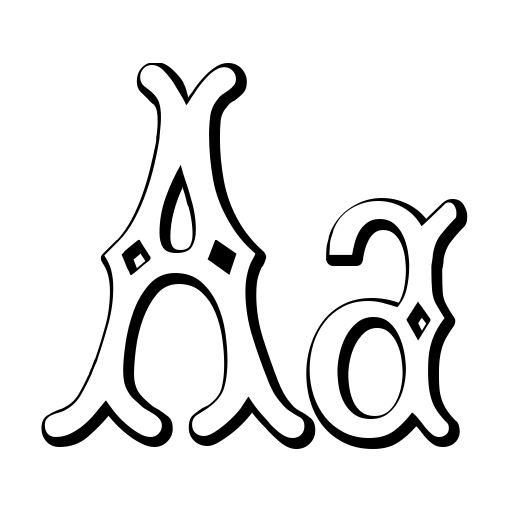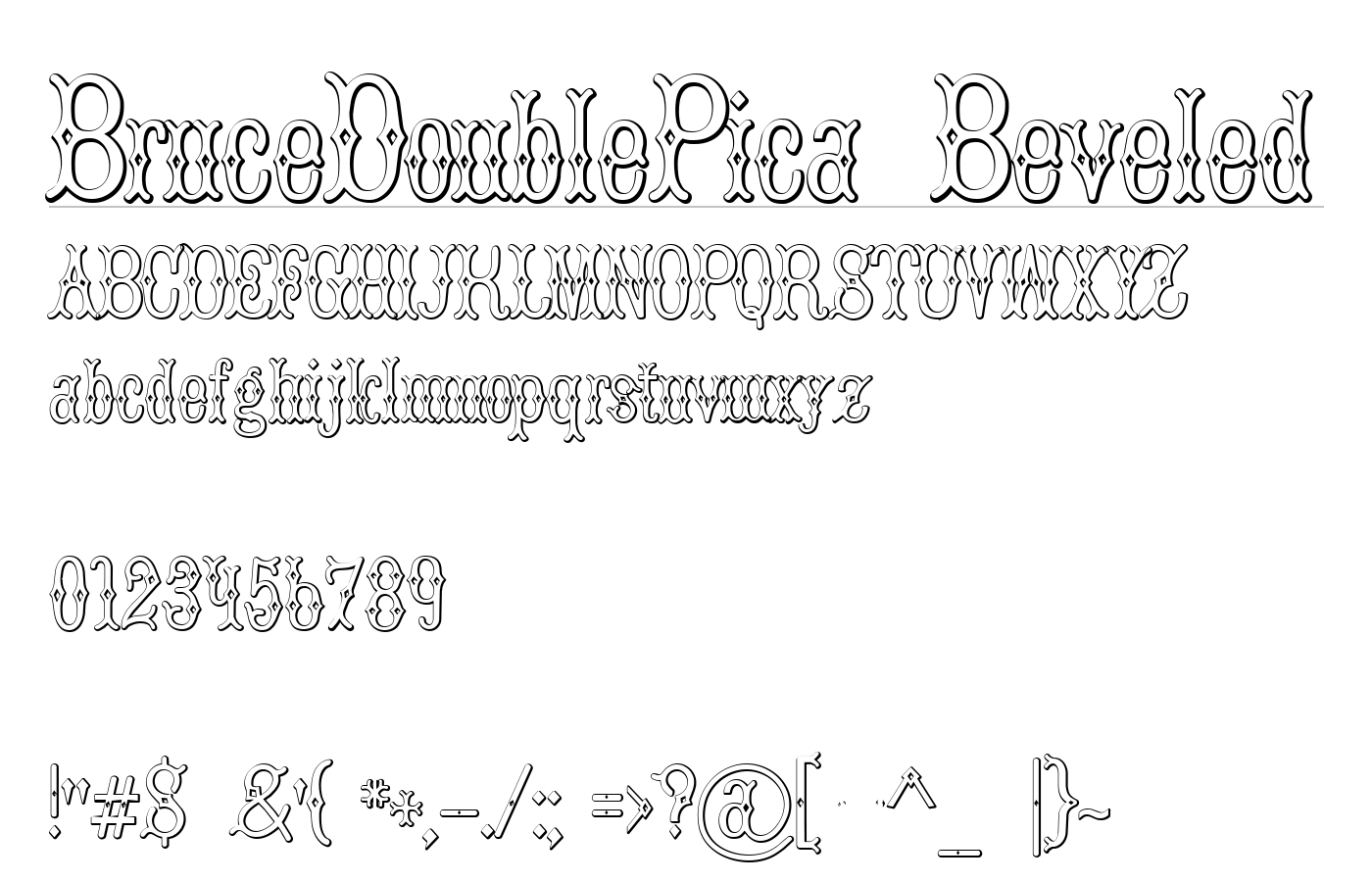
BruceDoublePica Beveled is a decorative serif font with a unique, ornate design featuring delicate beveled edges and intricate inner details that create a vintage, almost theatrical look. Its tall, narrow letterforms with high contrast and playful shapes make it perfect for eye-catching headlines, logos, or packaging where a distinctive, old-fashioned charm is desired. This font works well in creative or specialty contexts where style and personality are key, rather than in long body text.
BruceDoublePica Beveled Font
About BruceDoublePica Beveled Font